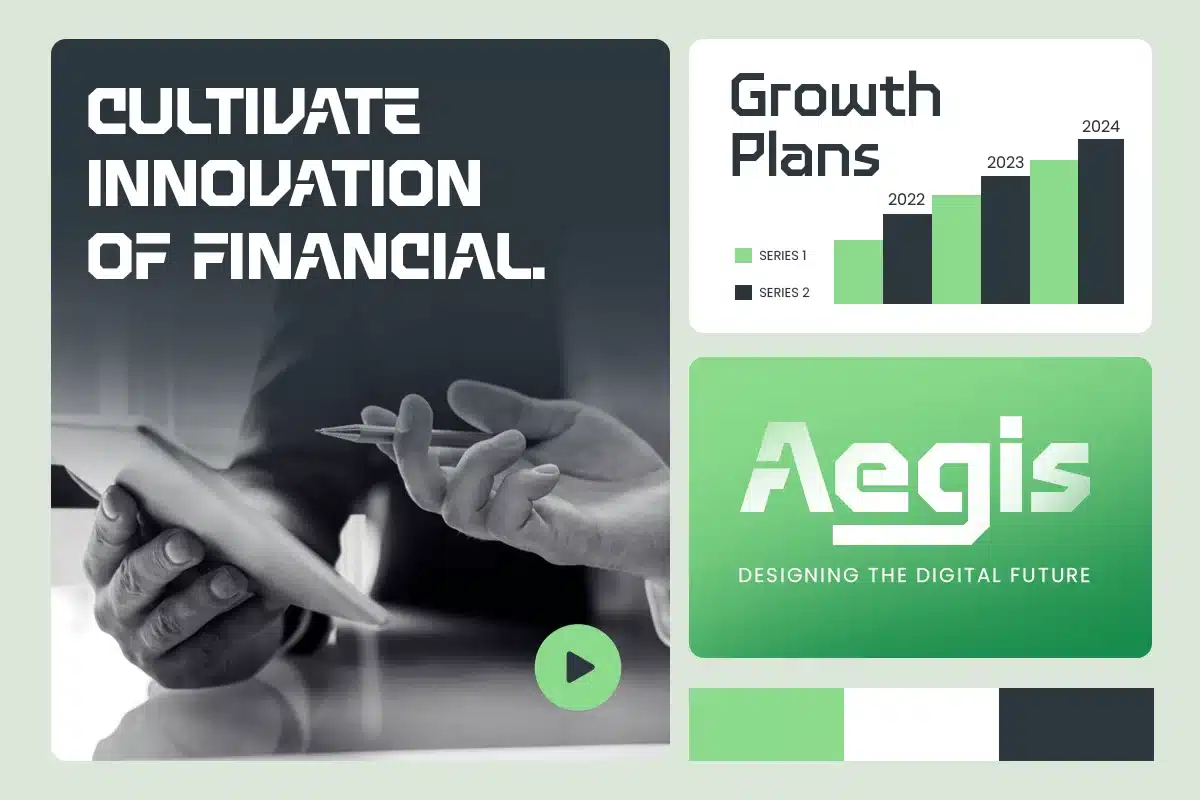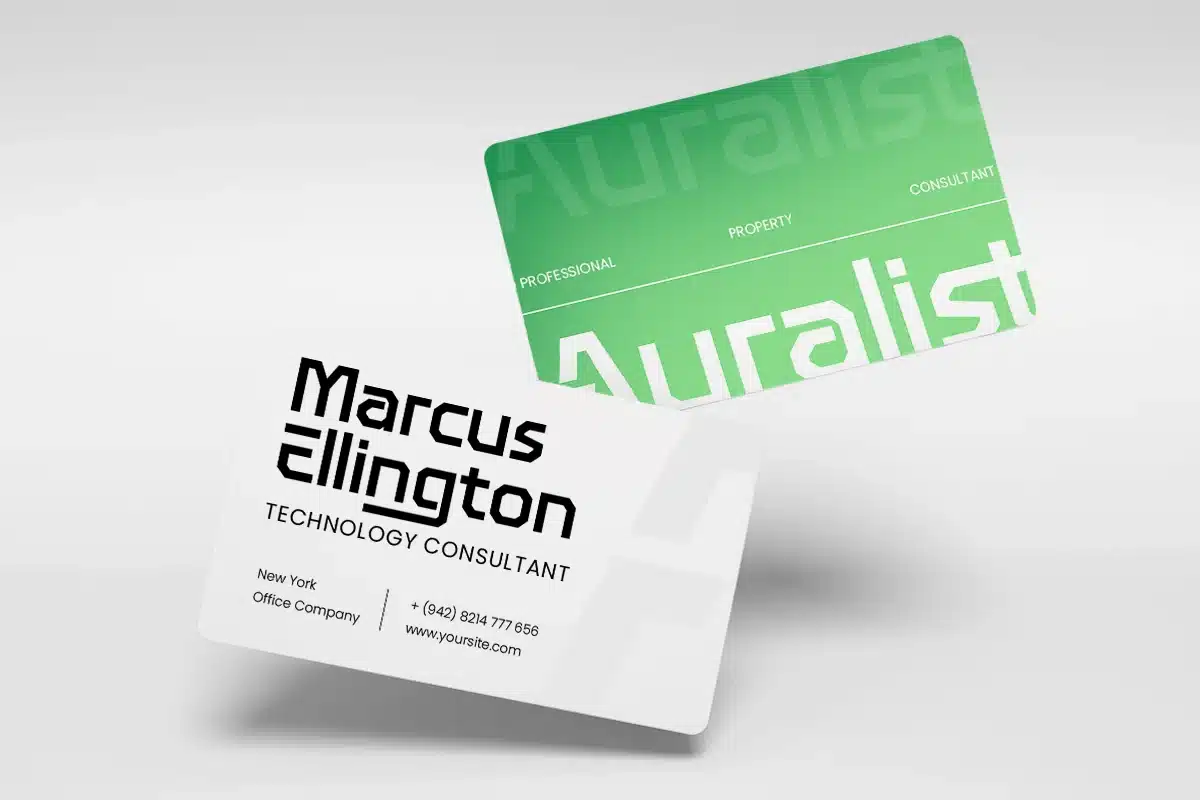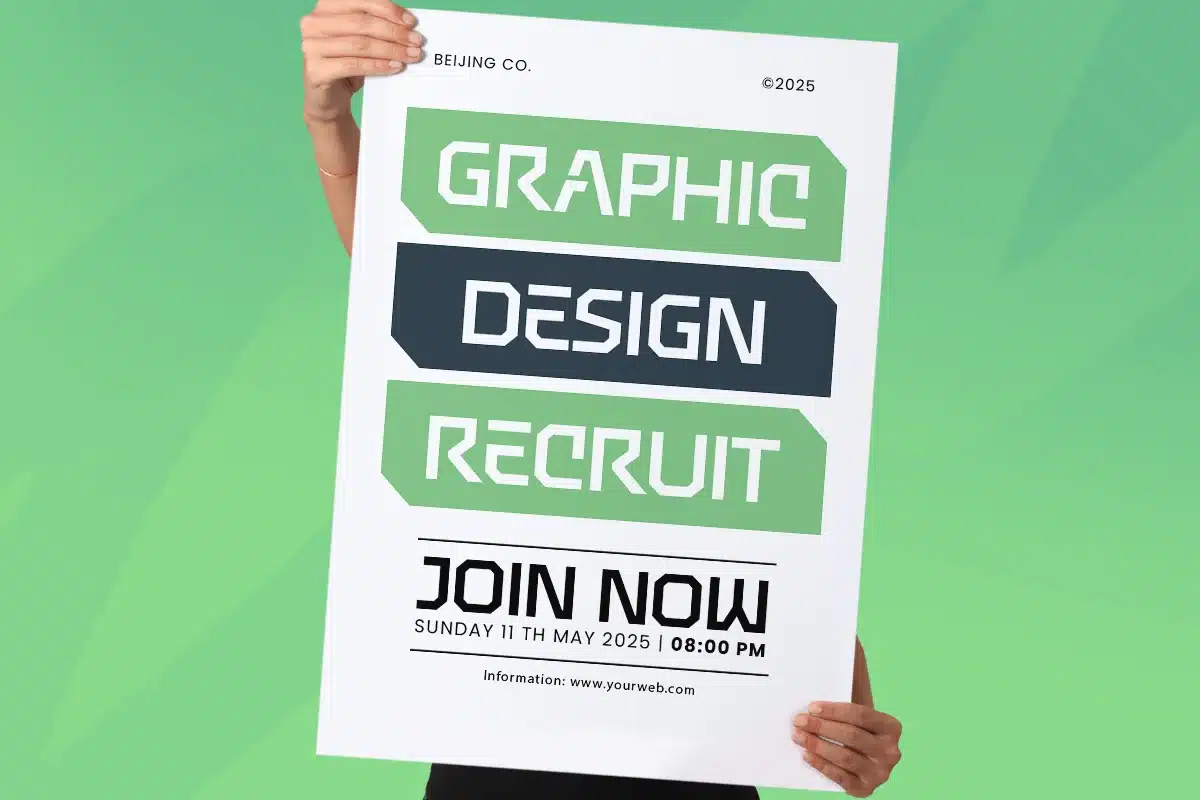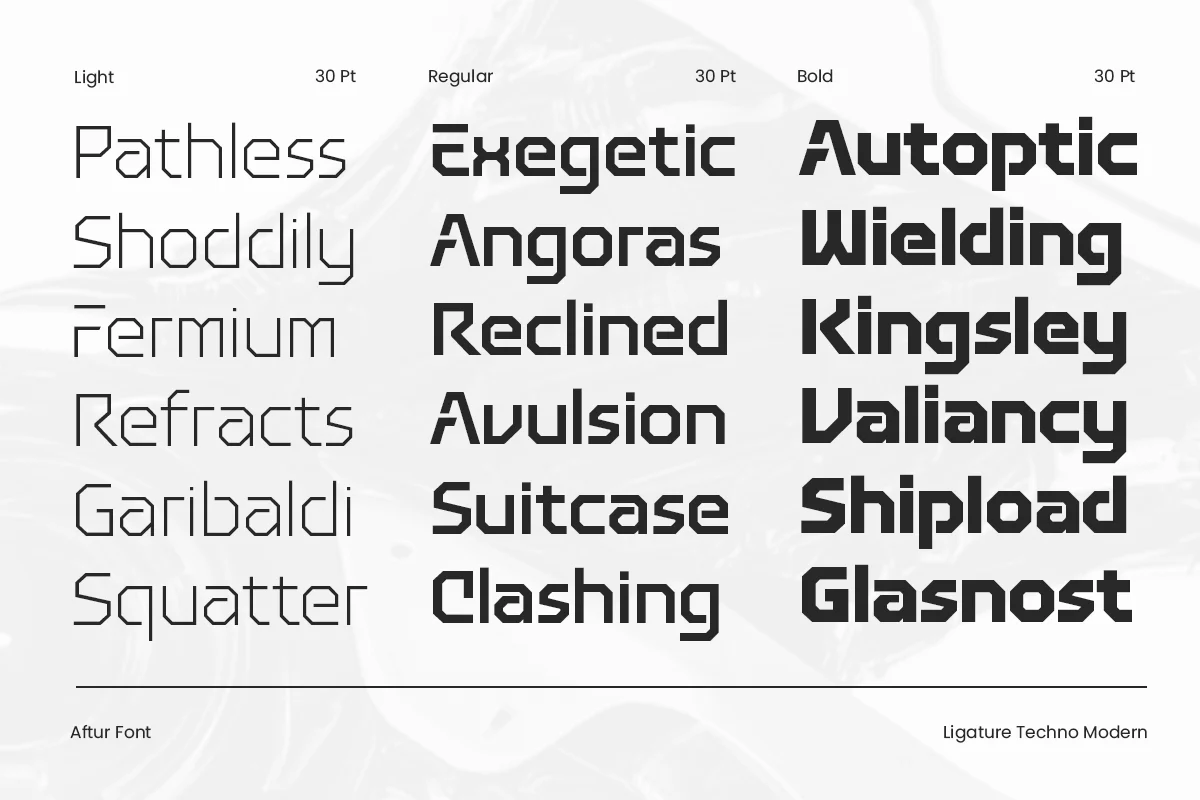
Aftur – Ligature Techno Modern Logo Font
AFTUR is a ligature techno modern logo font designed to push the boundaries of digital typography. With its innovative ligatures and clean, futuristic style, AFTUR is perfect for tech branding, digital design, and sci-fi inspired visuals. This font merges the best of modern style with a forward-thinking edge.
Ideal for logos, digital products, headlines, and cutting-edge UI/UX design, AFTUR brings a sleek, high-tech feel to your creative projects. The carefully crafted ligatures provide a seamless flow, adding both uniqueness and readability to your work. Whether you’re designing for the tech industry, gaming, or futuristic, AFTUR delivers a clean yet bold statement.
AFTUR – Ligature Techno Modern Font Features
- Dynamic ligature-driven design
- Ready with 3 Weights: Light, Regular, Bold
- Perfect for digital and high-tech branding
- Includes uppercase, lowercase, numerals, and punctuation
- Modern, clean, and futuristic style
- Unique with Alternates and Ligature Characters
- OpenType features for extra typographic flexibility
Elevate your designs with AFTUR – the ultimate ligature techno font for futuristic typography. 🚀✨